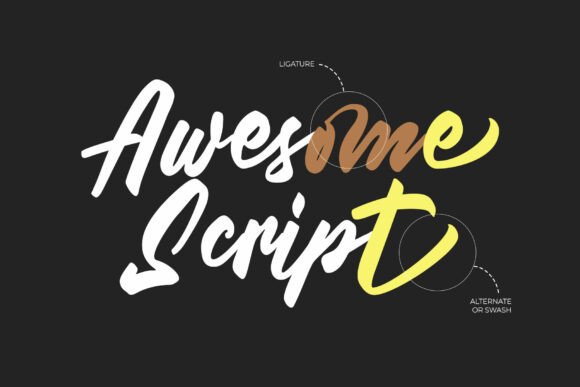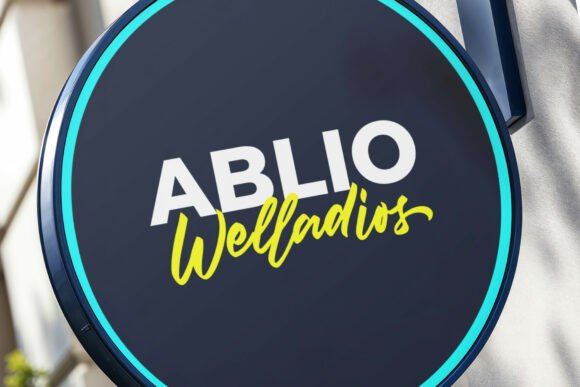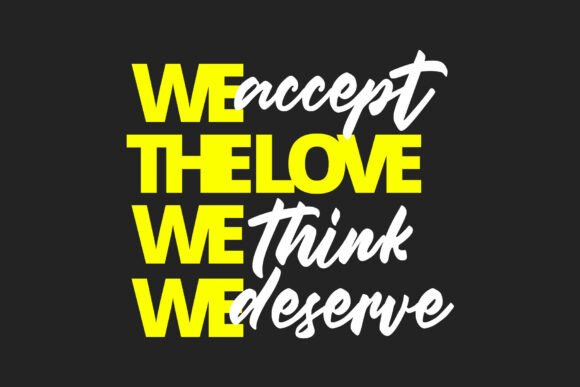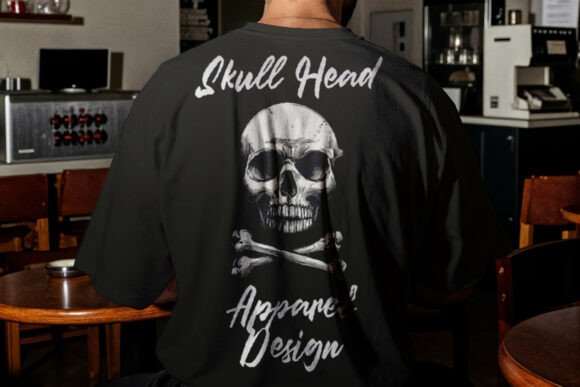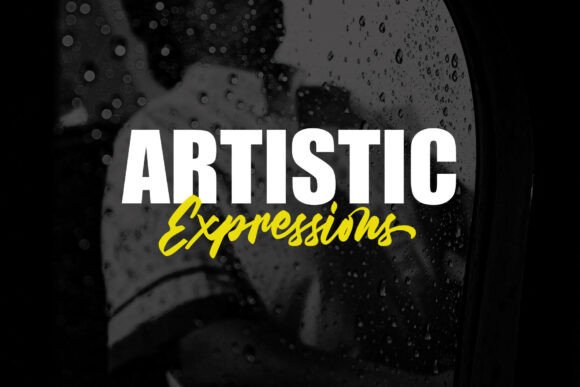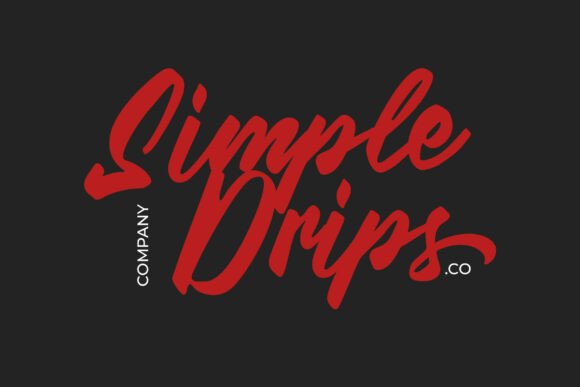
Introducing Block Brick Font: A Versatile Typeface for Modern Designers
The Block Brick Font is a unique and highly versatile typeface that has been crafted from a lettering concept. This font is perfect for designers and crafters looking to add a touch of personality to their designs. With its ability to seamlessly blend with various design styles, from classic to modern, the Block Brick Font is an excellent addition to any design arsenal.
The Birth of Block Brick Font
The Block Brick Font was born from a lettering concept that has been carefully transformed into a fully-fledged typeface. The font’s design is inspired by the idea of block bricks, which are often used in construction and architecture. The font’s creator has taken this concept and run with it, crafting a unique and visually appealing typeface that is sure to capture the attention of designers and crafters alike.
One of the standout features of the Block Brick Font is its versatility. This font can be used in a wide range of design applications, from classic and traditional designs to modern and edgy ones. Whether you’re working on a branding project, a website design, or a craft project, the Block Brick Font is sure to fit right in. Its highly legible and adaptable design makes it perfect for use in various contexts, including:
- Apparel design: Create stunning t-shirts, hoodies, and other apparel items with the Block Brick Font.
- Posters and flyers: Add a touch of personality to your posters and flyers with this unique font.
- Gifts and merchandise: Use the Block Brick Font to create personalized gifts, such as mugs, phone cases, and more.
- Web design: Add a touch of elegance and sophistication to your website or landing page with this beautiful font.
- Typographic compositions: Experiment with the Block Brick Font to create stunning typographic compositions that are sure to capture attention.
Why Choose Block Brick Font?
So, why should you choose the Block Brick Font for your next design project? Here are just a few reasons:
- Unique design: The Block Brick Font has a unique and eye-catching design that is sure to set your designs apart from the rest.
- Highly versatile: This font can be used in a wide range of design applications, making it a great addition to any design arsenal.
- Easily legible: The Block Brick Font is highly legible, even at small sizes, making it perfect for use in various contexts.
Tips for Using Block Brick Font
Here are a few tips for using the Block Brick Font in your designs:
- Experiment with different colors: The Block Brick Font looks great in a wide range of colors, so don’t be afraid to experiment and find the perfect color for your design.
- Play with font sizes: This font looks great at a wide range of font sizes, from large and bold to small and subtle.
- Combine with other fonts: The Block Brick Font pairs well with a wide range of other fonts, so feel free to experiment and find the perfect combination for your design.
The Block Brick Font is a highly versatile and unique typeface that is perfect for designers and crafters looking to add a touch of personality to their designs. With its ability to seamlessly blend with various design styles, from classic to modern, this font is an excellent addition to any design arsenal. Whether you’re working on a branding project, a website design, or a craft project, the Block Brick Font is sure to fit right in. So why not give it a try and see the amazing results for yourself?